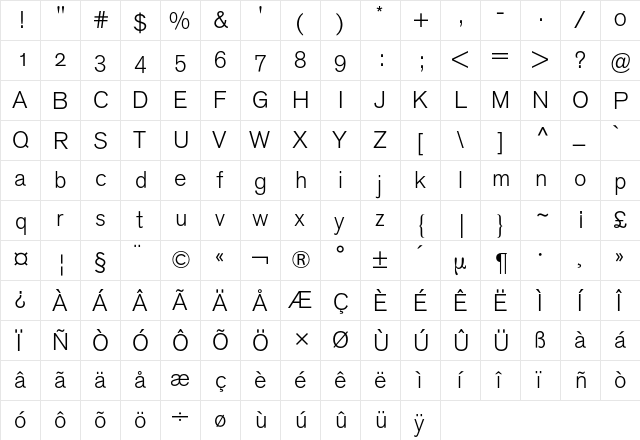
Akzidenz-Grotesk Expert BQ Regular
Design Context for Akzidenz-Grotesk Expert BQ Typeface
Akzidenz-Grotesk Expert BQ takes a clean, functional approach — its unadorned letterforms prioritise legibility and work reliably across screen and print environments.
Font Pairing: Works well alongside a characterful serif or display font that can carry the expressive load while Akzidenz-Grotesk Expert BQ handles the functional copy.
Pro Tip: Pair Akzidenz-Grotesk Expert BQ with a display or serif font for headlines — its neutral character makes it an excellent supporting player in complex typographic systems.